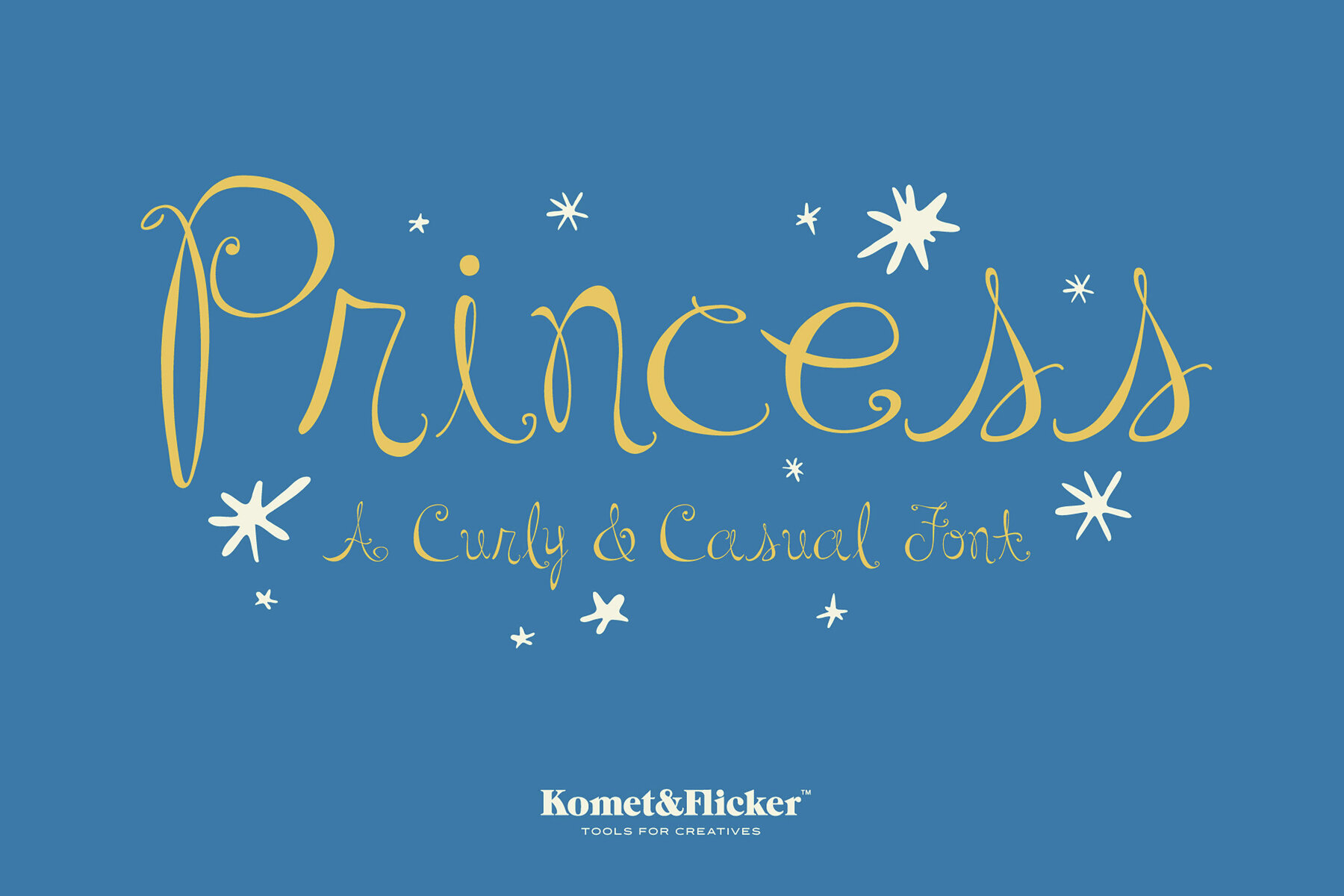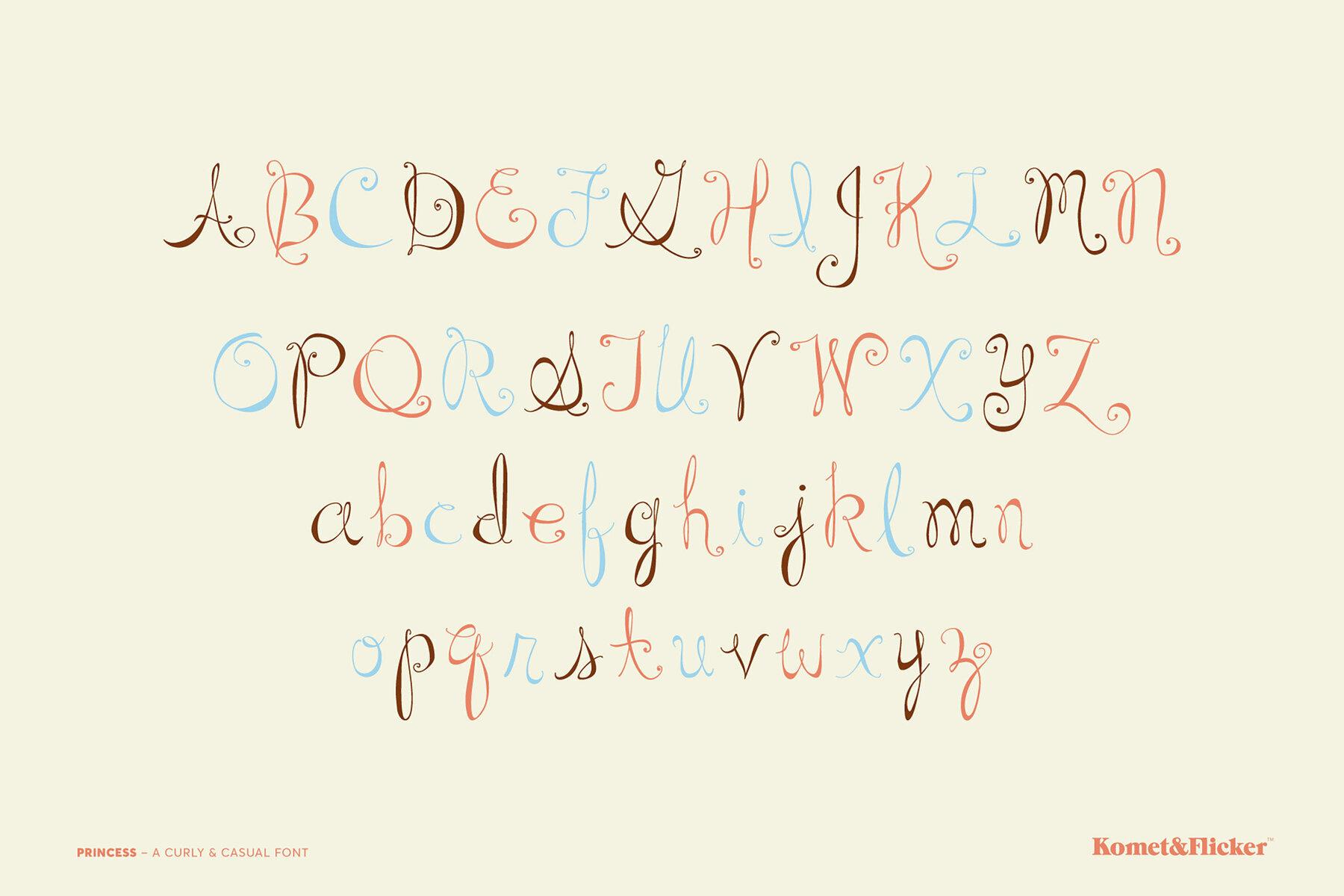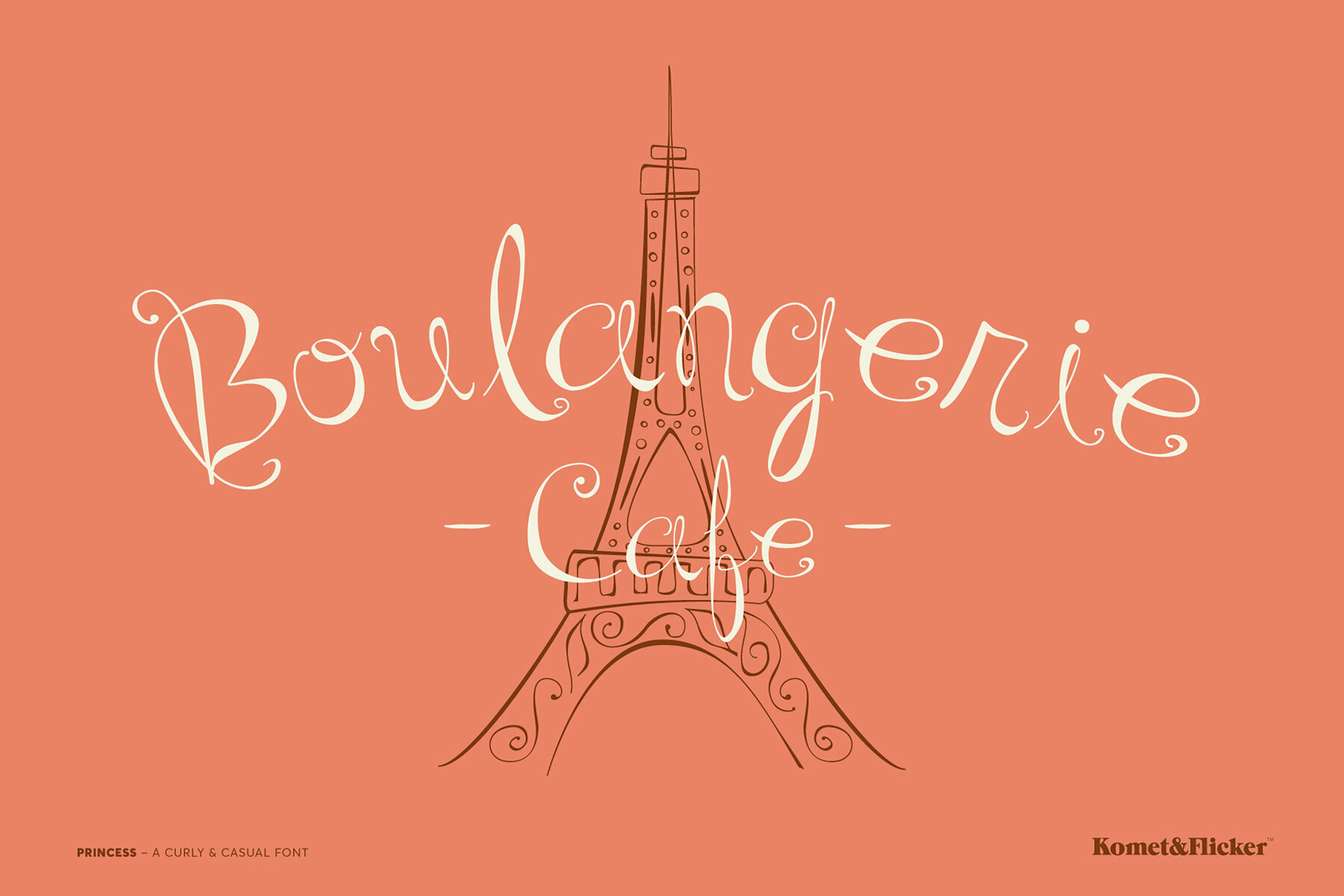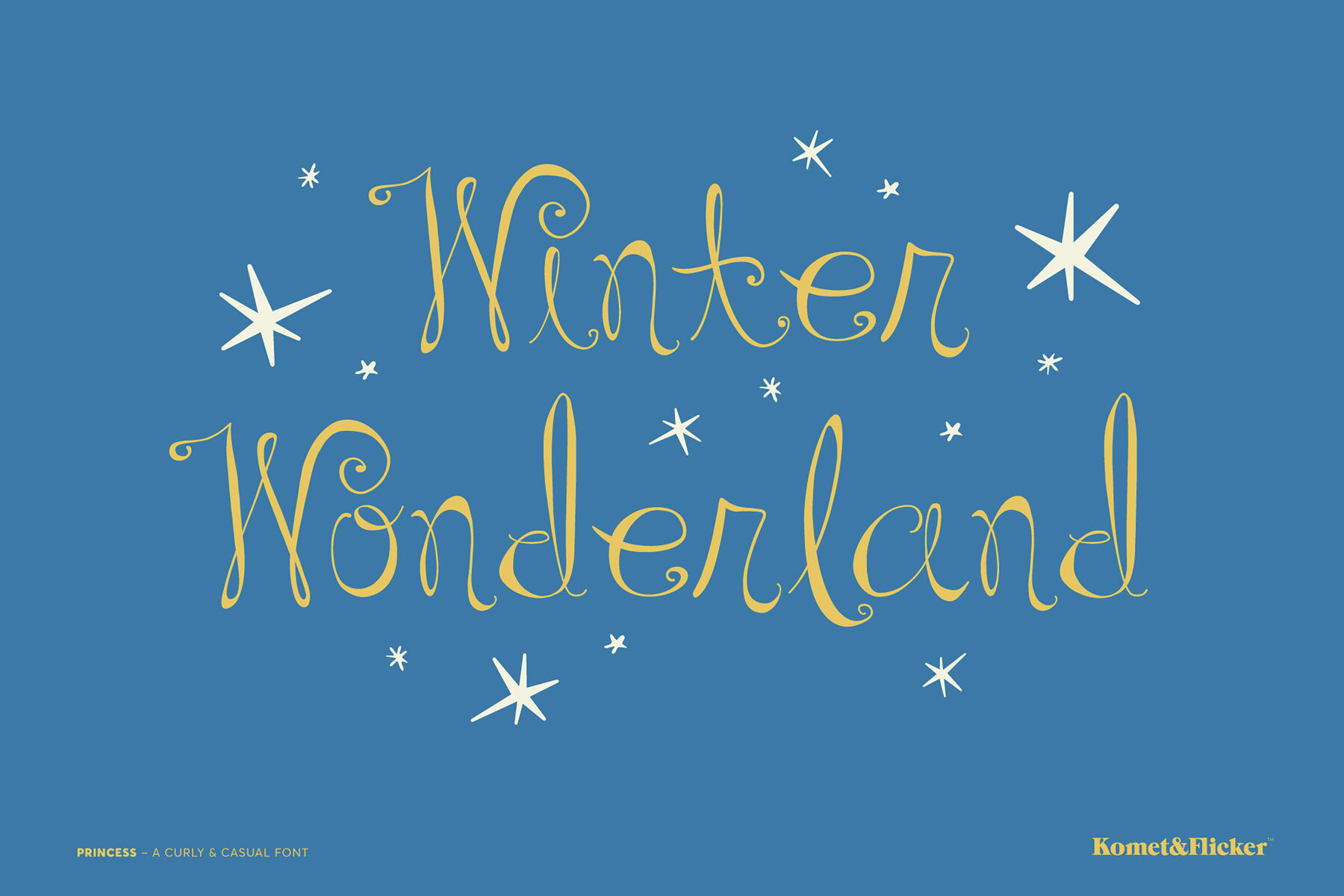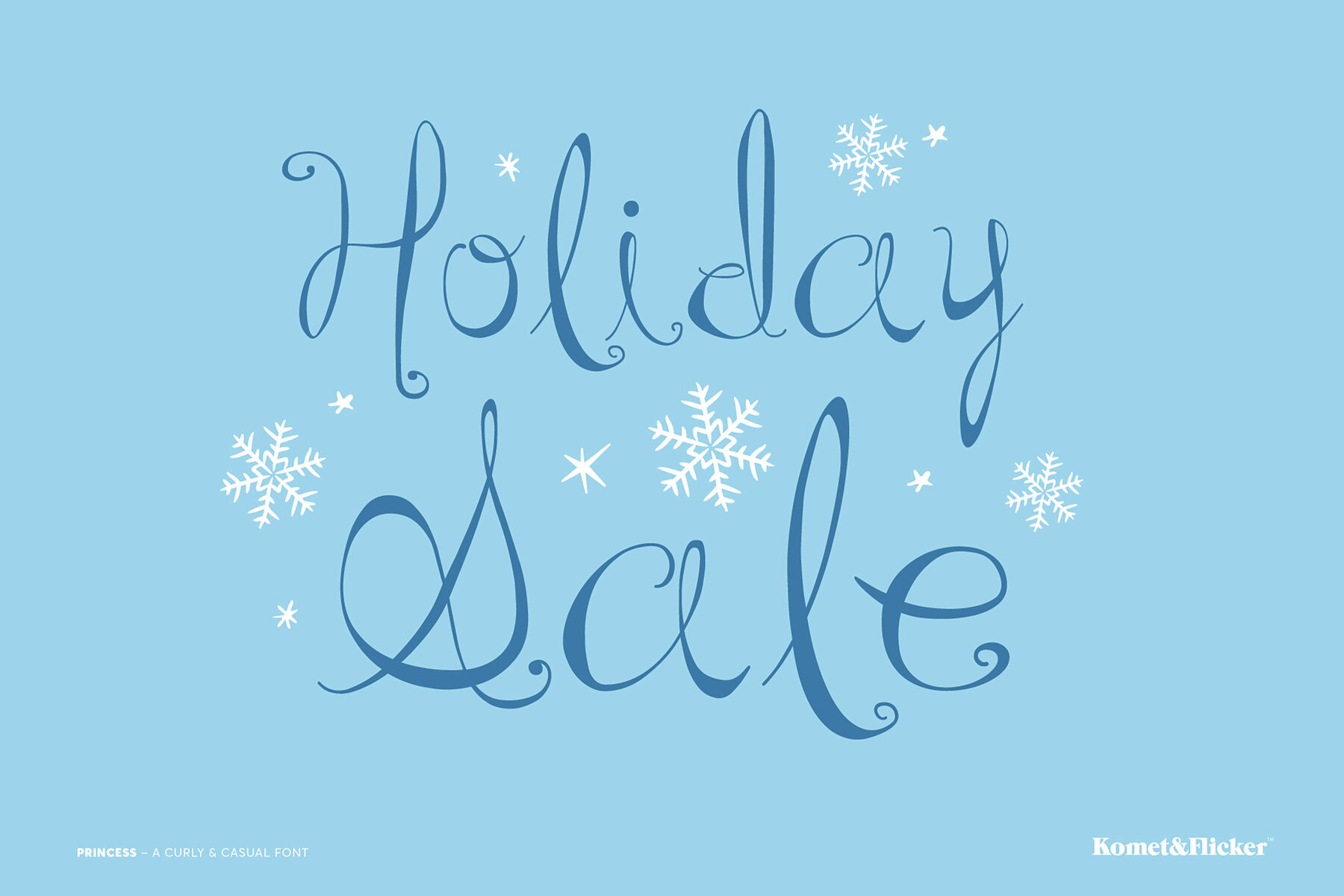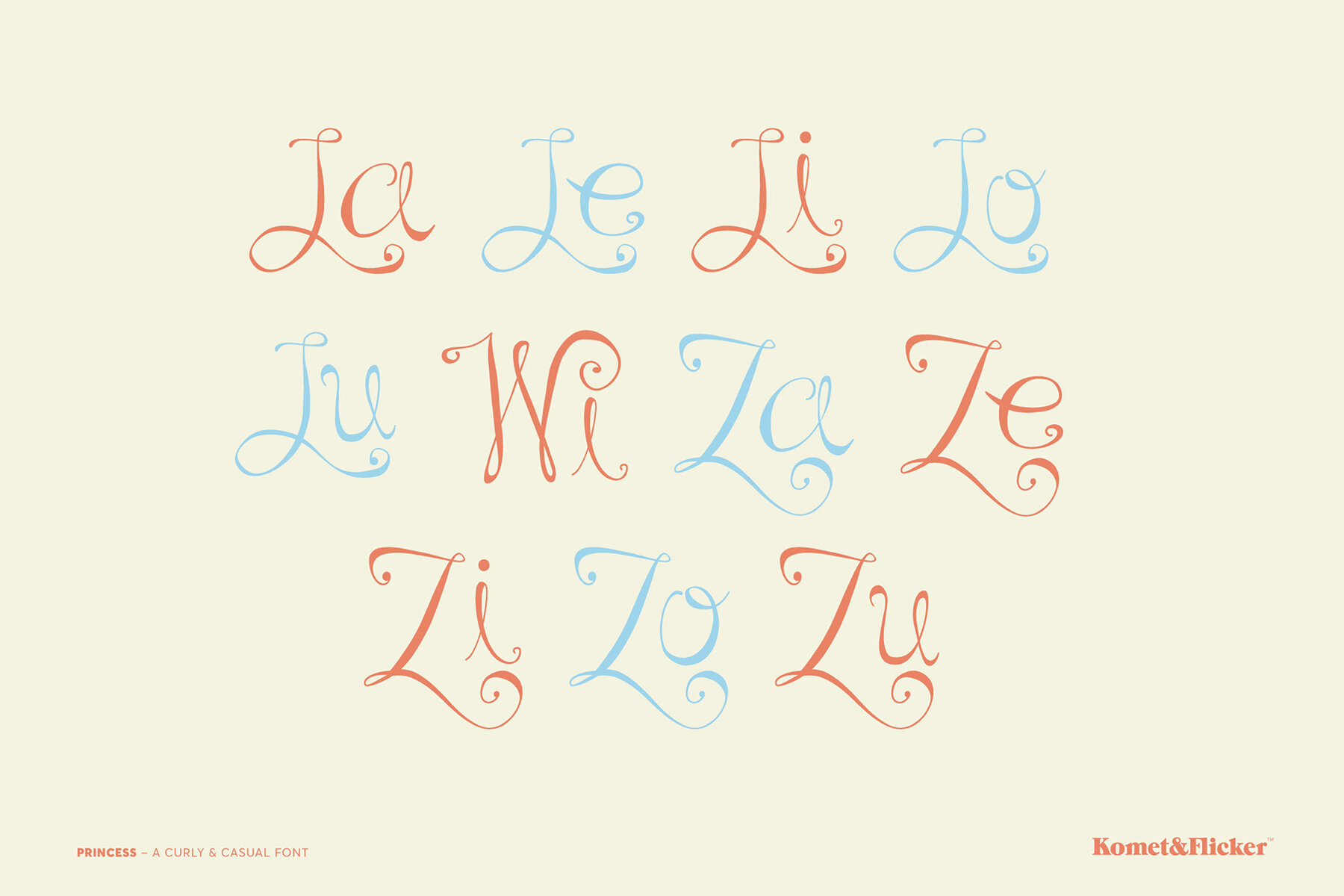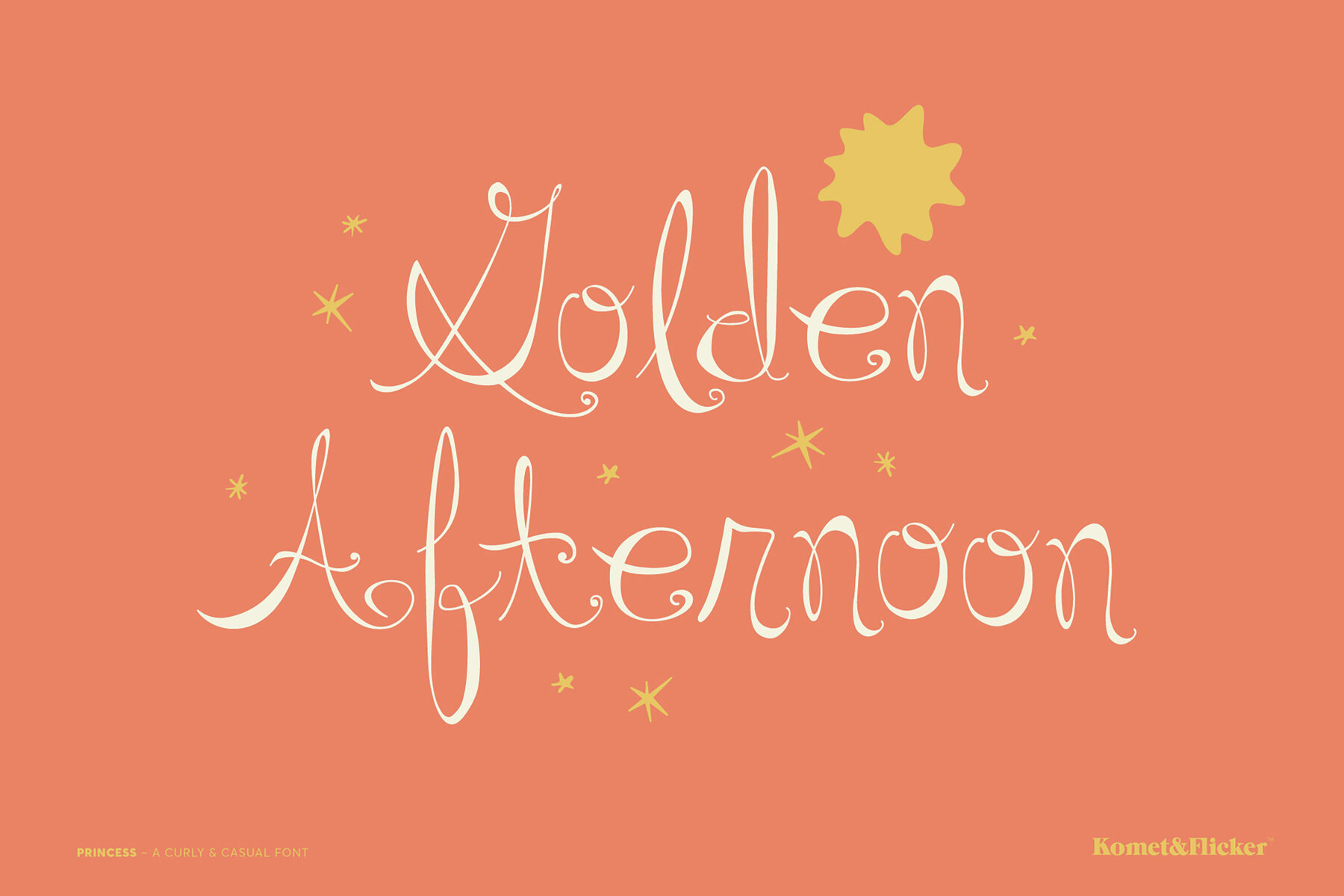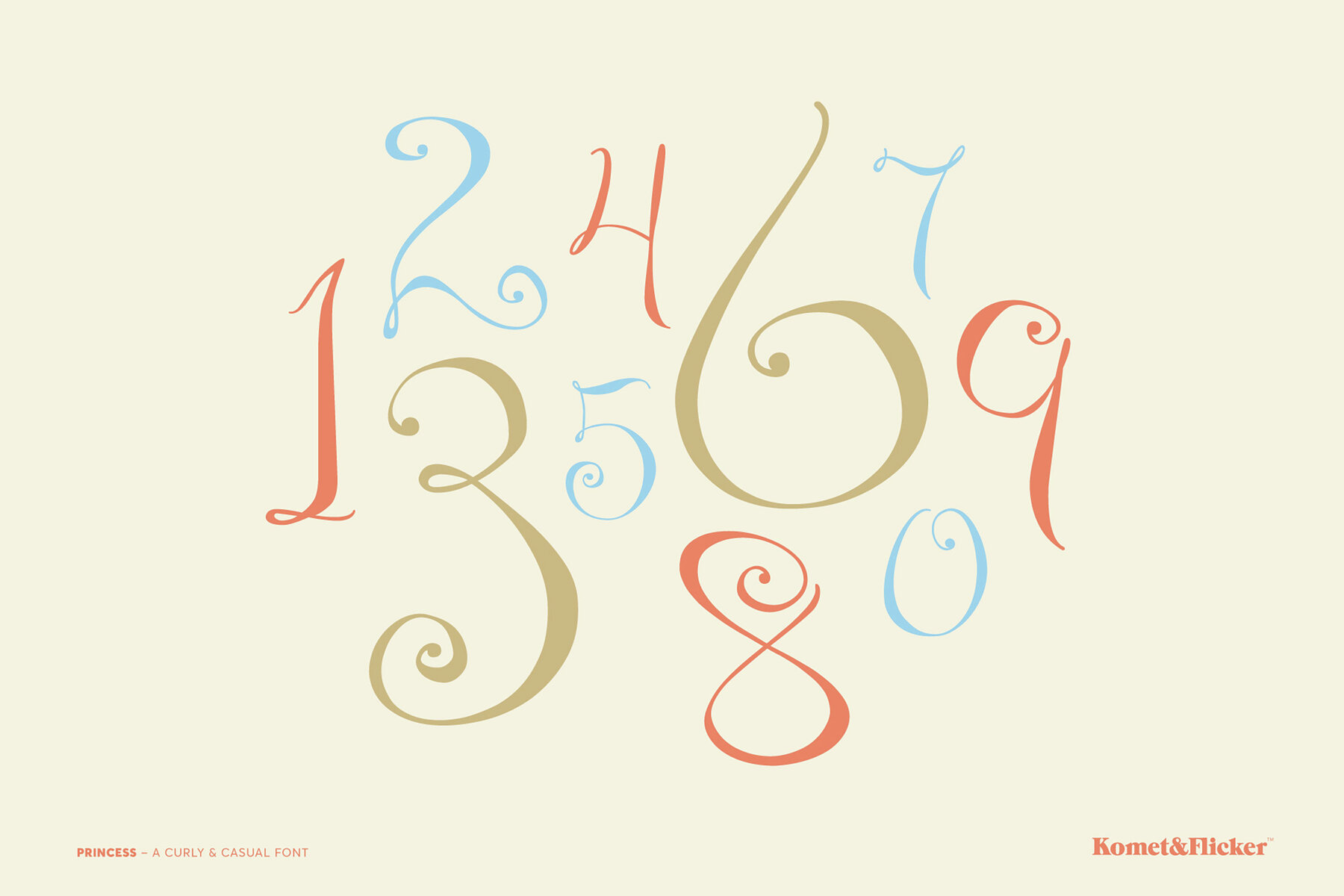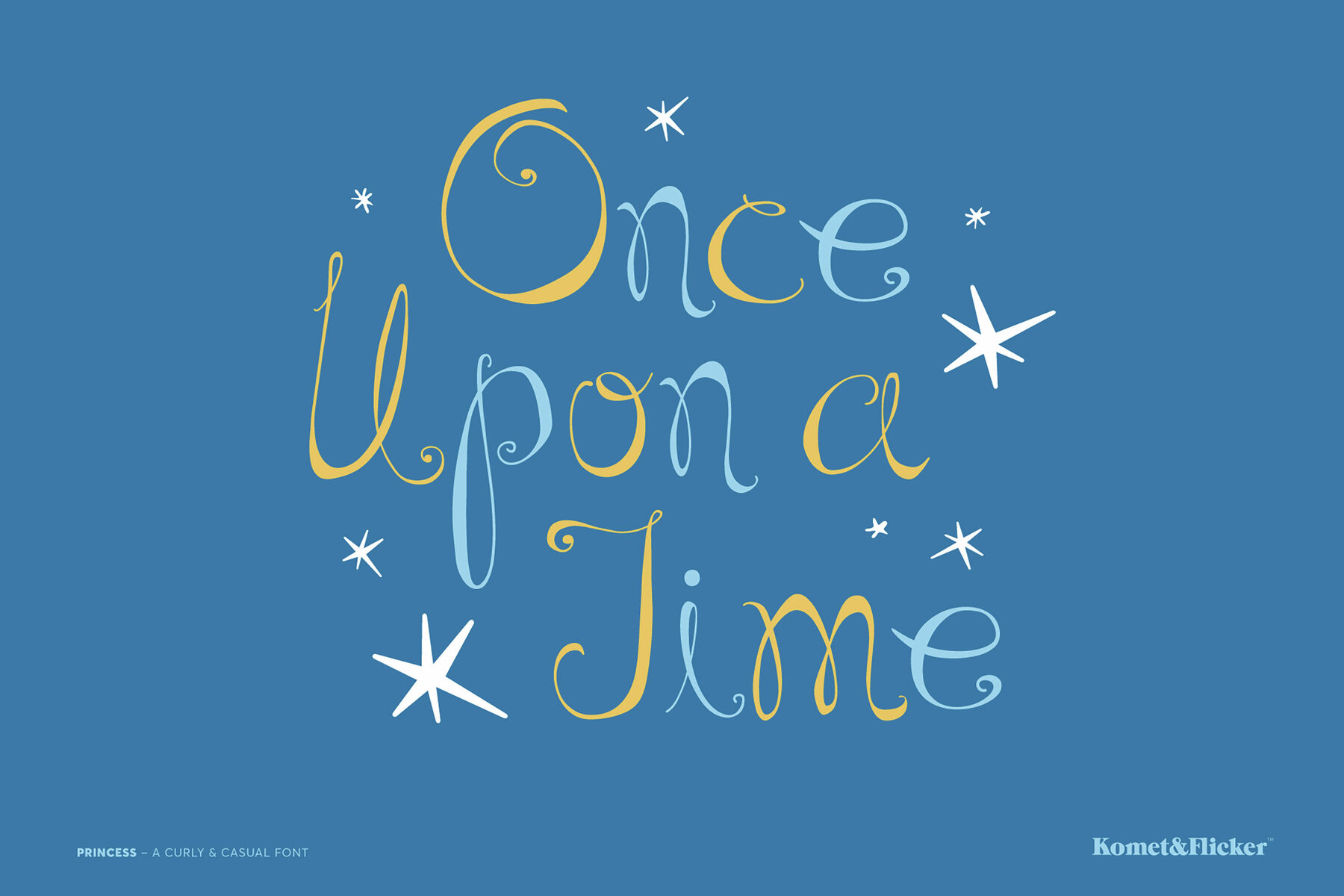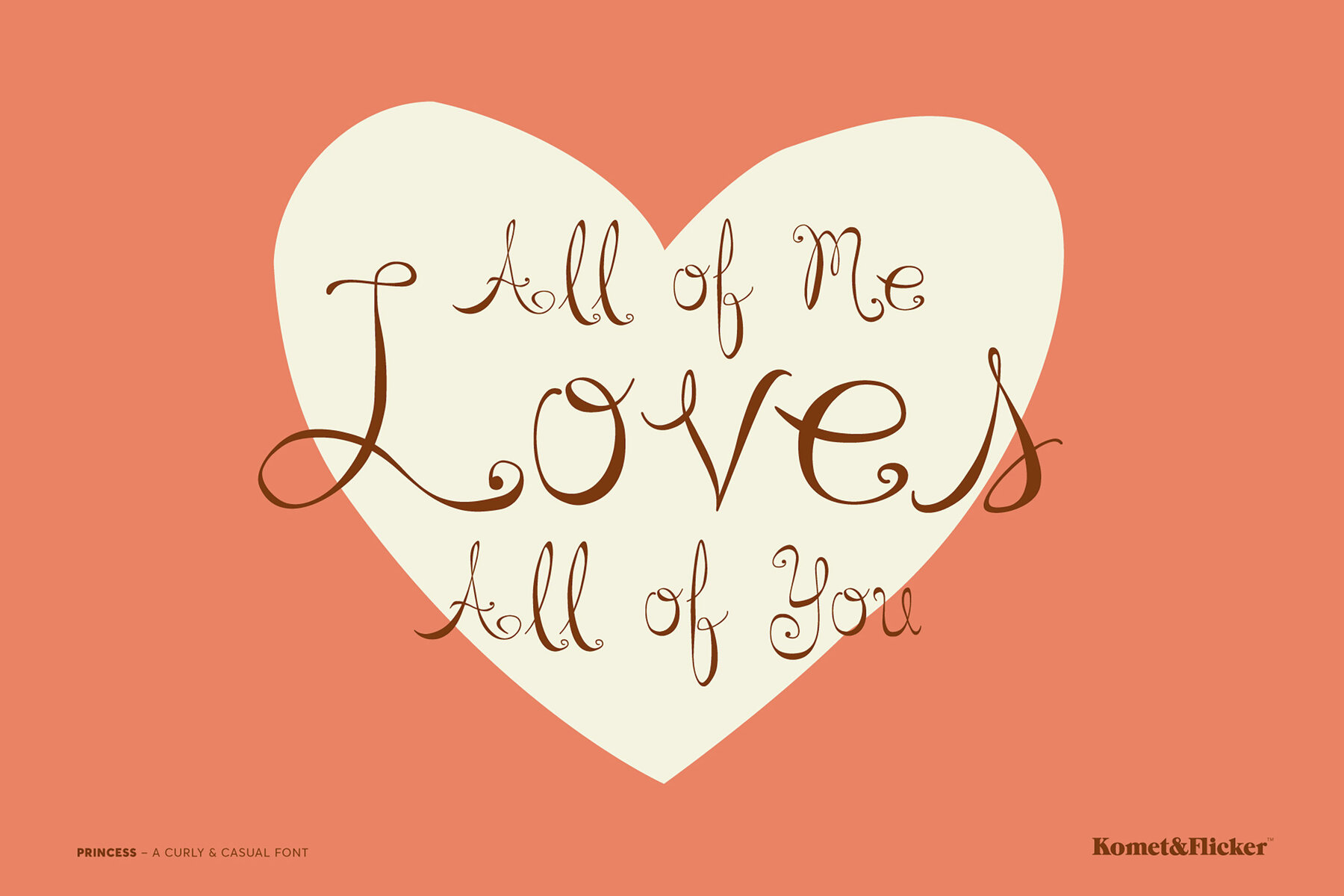
Princess Font
Princess Regular
Princess by Komet & Flicker is a whimsical, fairy-tale inspired font perfect for adding a touch of magic to your designs. Ideal for fashion or holiday-themed projects, its delicate hand-drawn forms enhance the visual appeal of any creative endeavor. The font features a wide array of characters and symbols, ensuring versatility and functionality in your designs.
This typeface includes a full set of A-Z uppercase and lowercase basic Latin characters, as well as select European specific characters to accommodate various languages. Additionally, Princess offers a set of 11 custom ligatures, providing unique styling options for text. Complete with numbers, punctuation, and select symbols, it is designed to cater to diverse design needs while maintaining a playful yet sophisticated aesthetic.